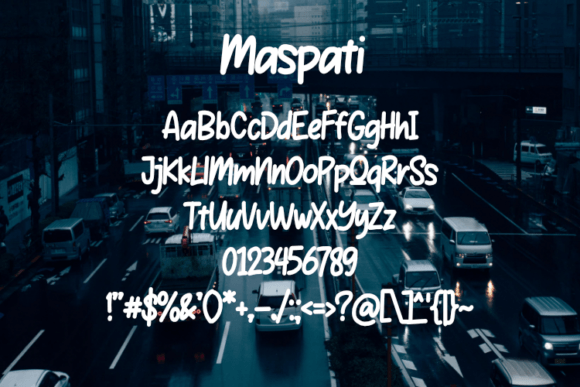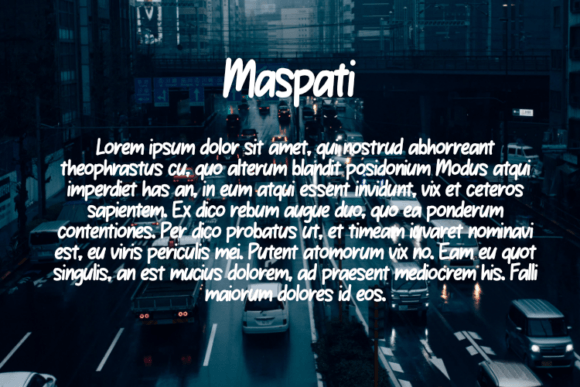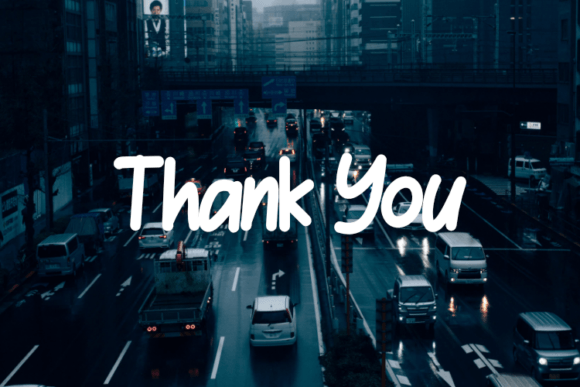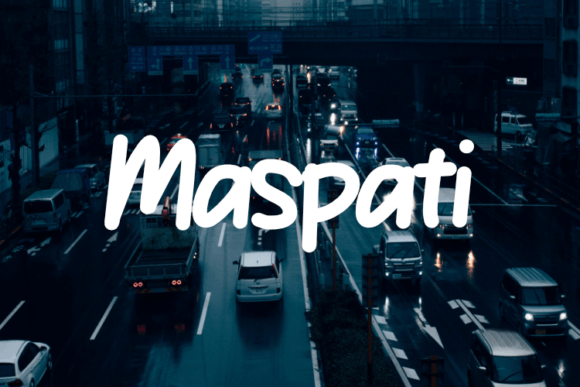
Introduction to Maspati Font
Immerse yourself in the creative world with Maspati, an effortlessly versatile font developed for designing standout apparel such as t-shirts, and array of other imaginative products.
Maspati Font offers exceptional quality and versatility, making it a valuable addition to your design toolkit. Whether you’re creating for personal projects or commercial use, Maspati Font delivers professional results.